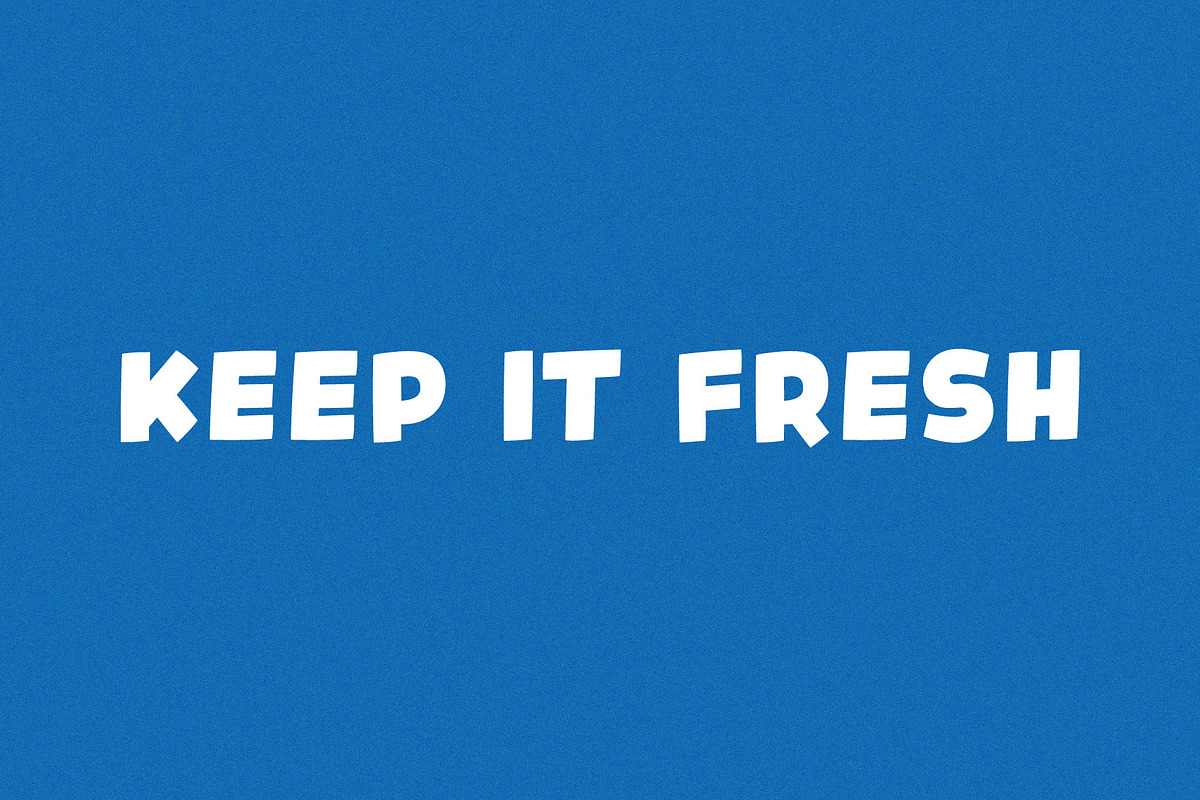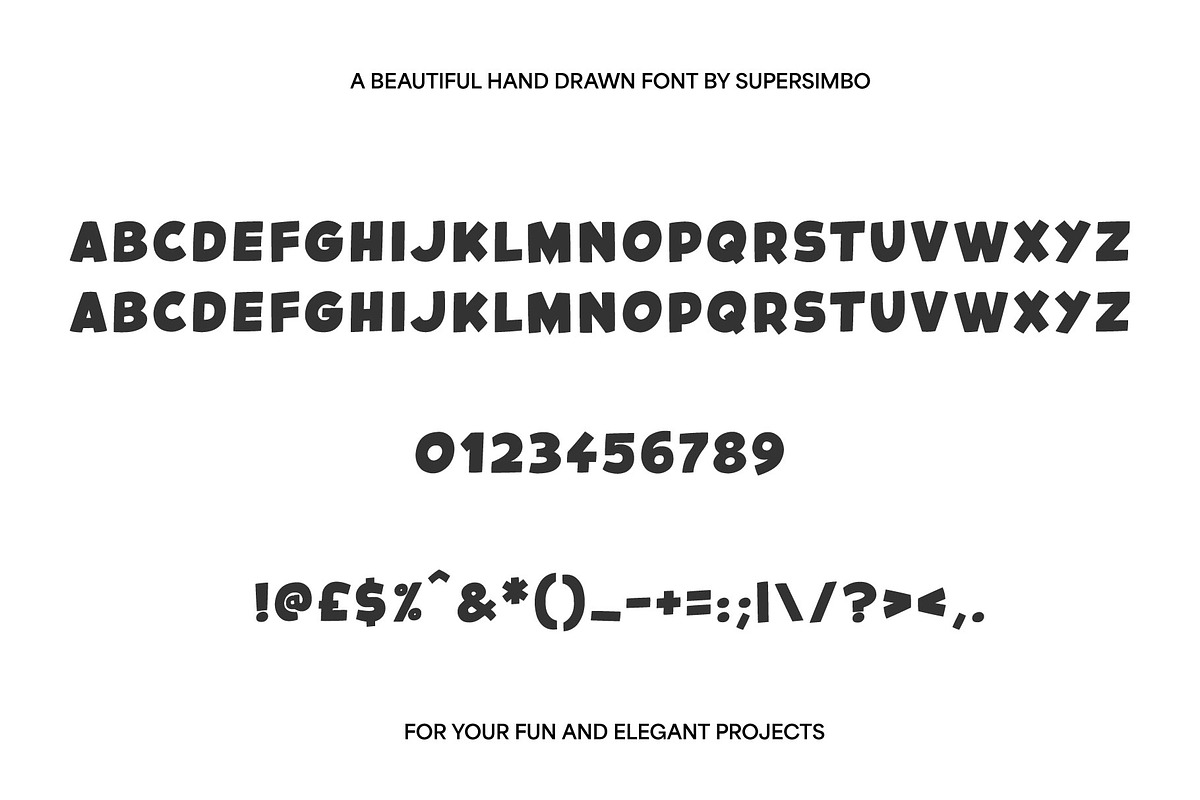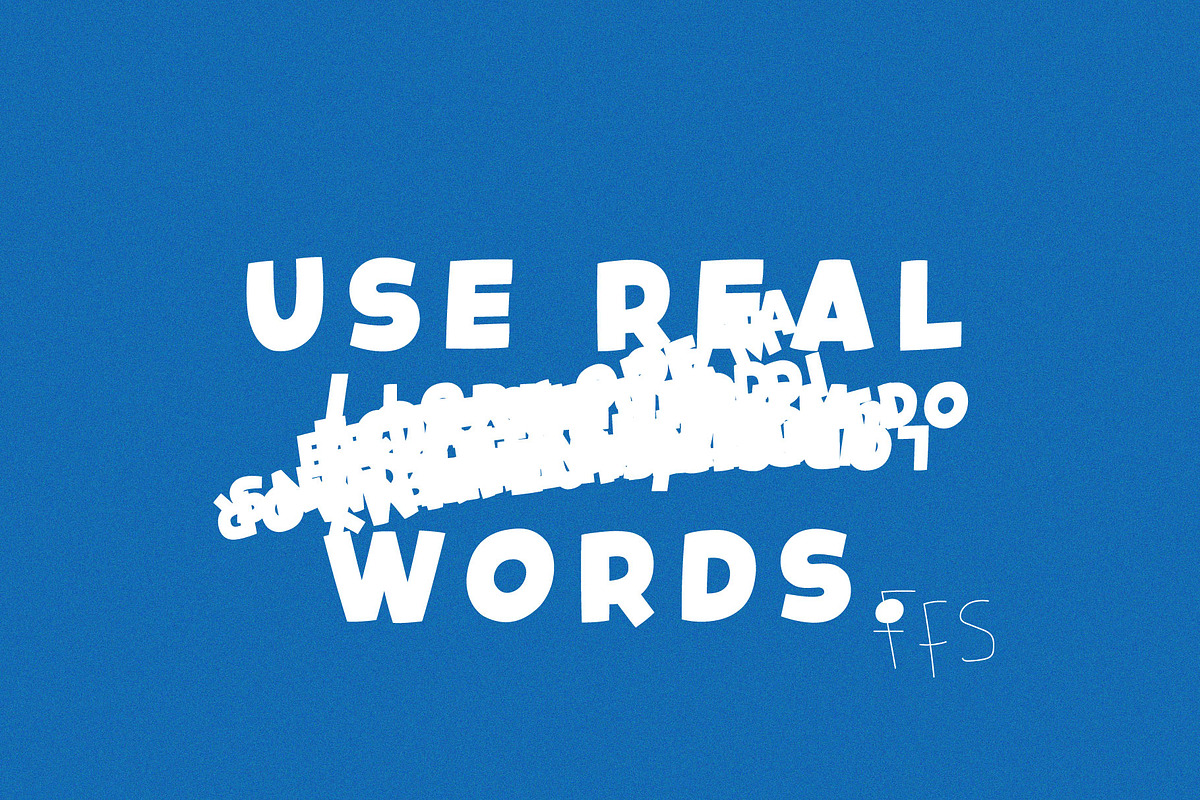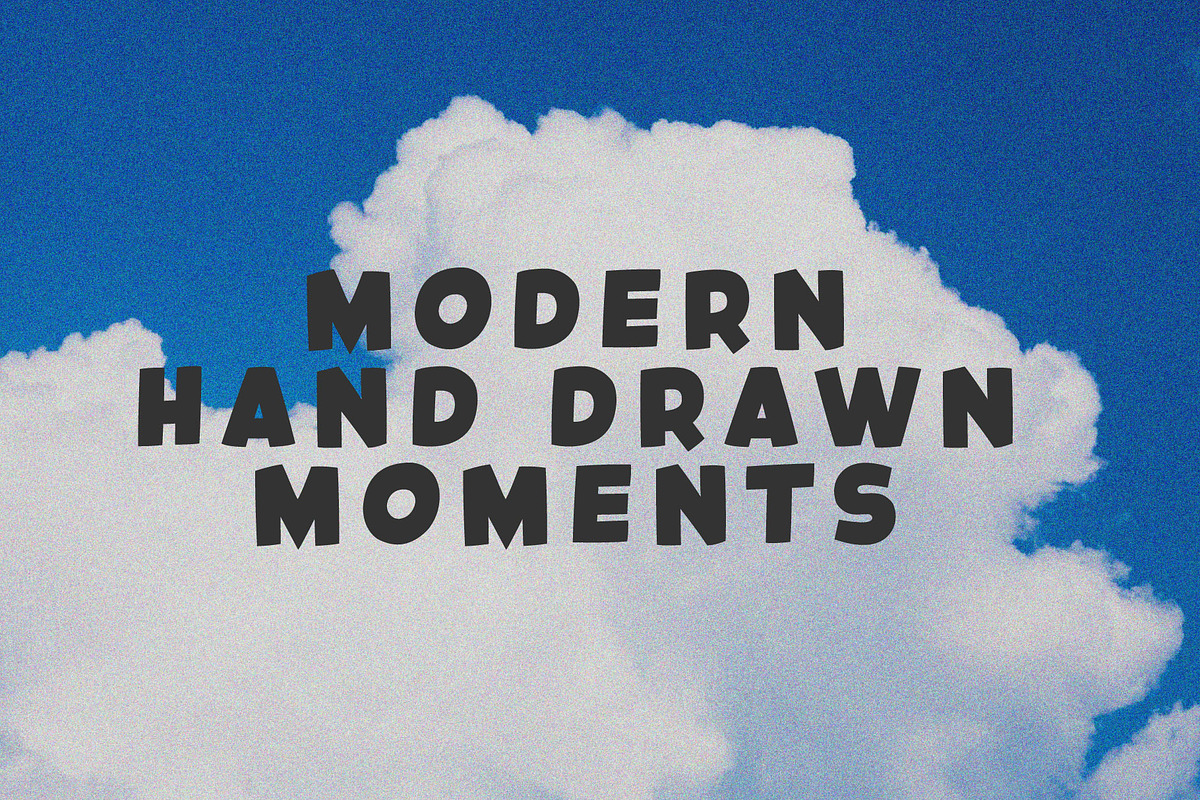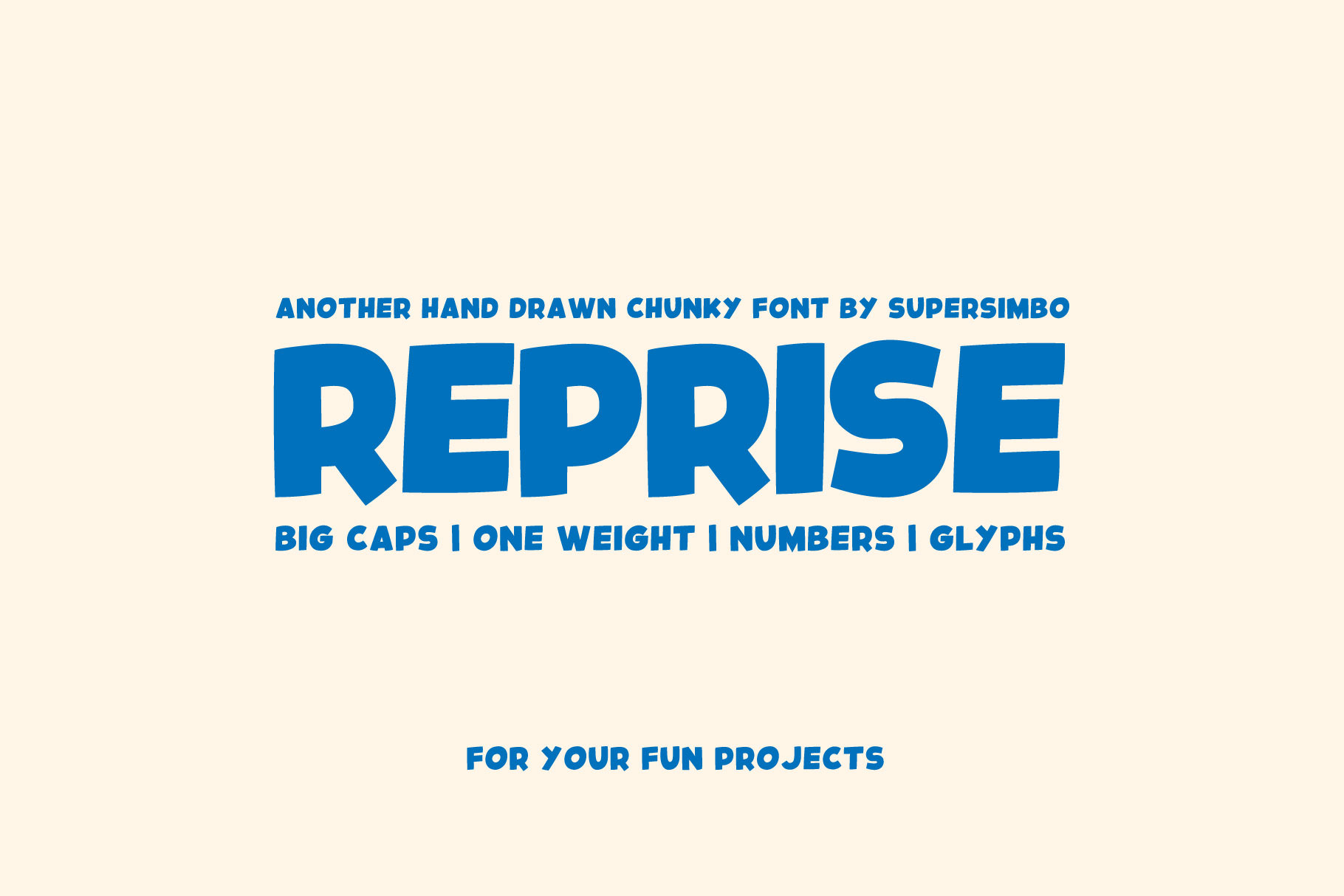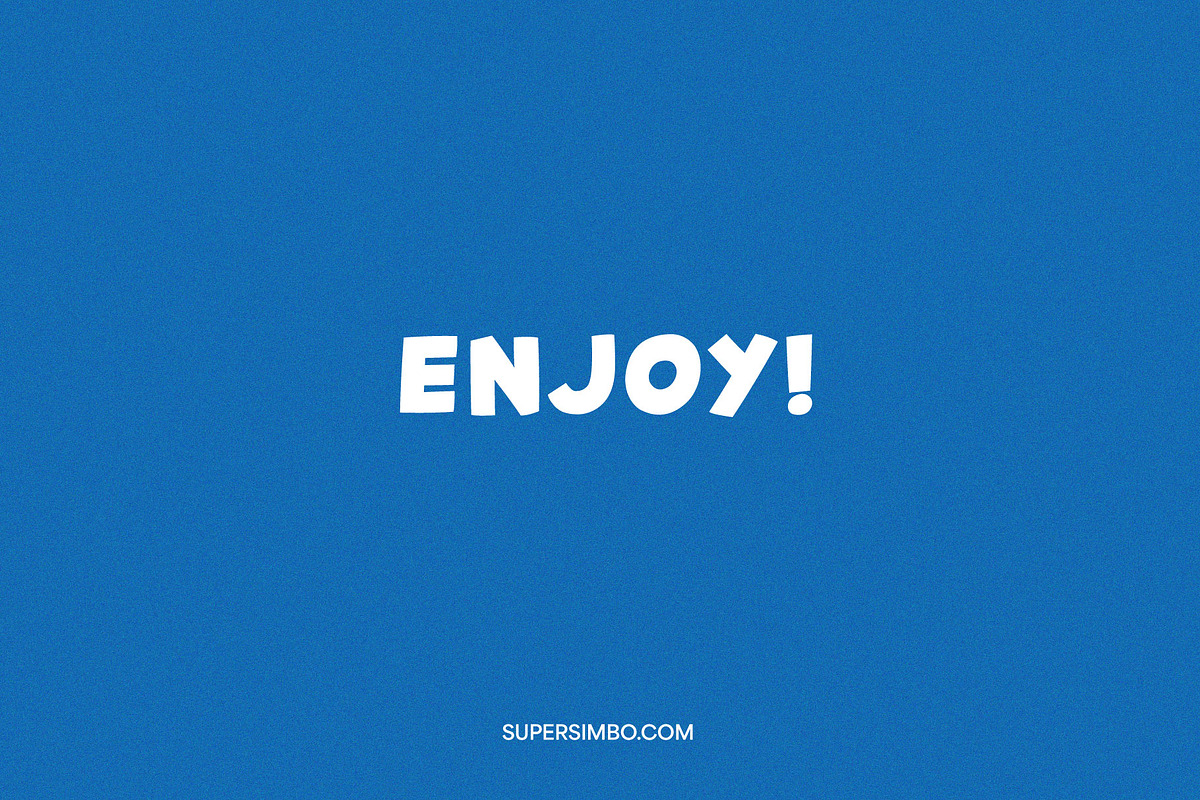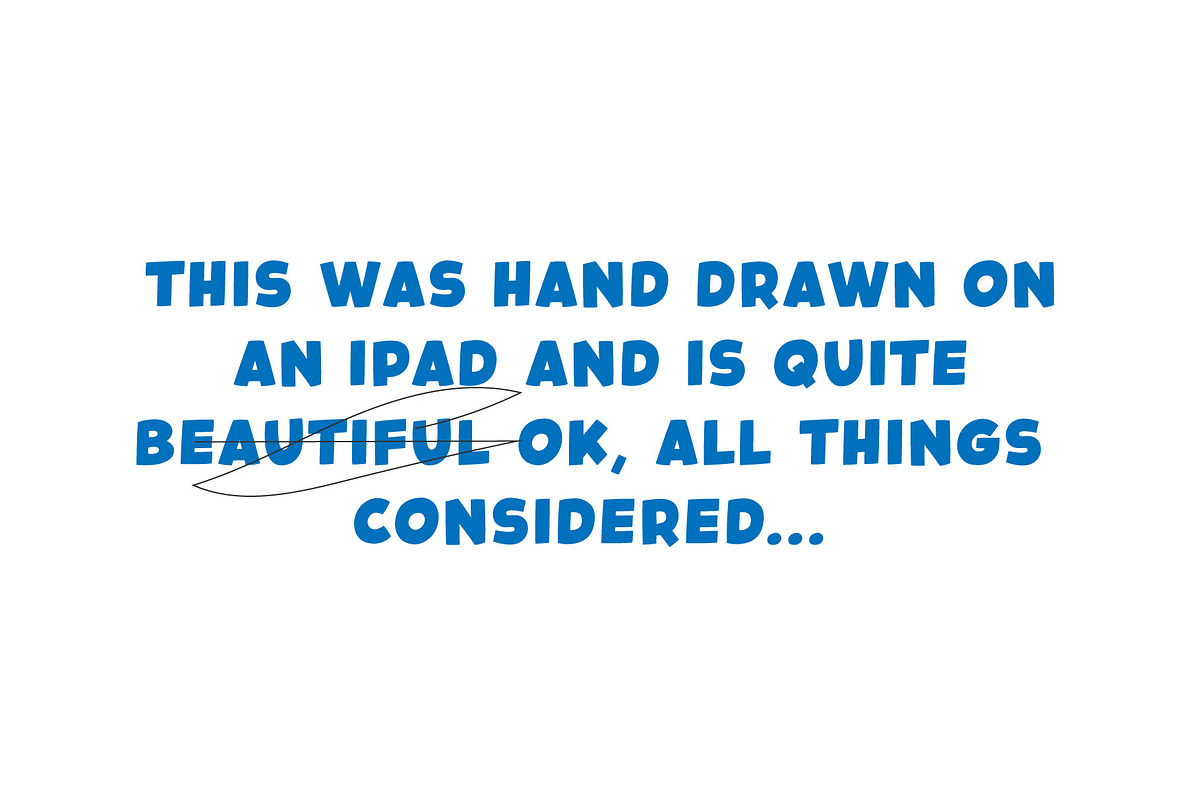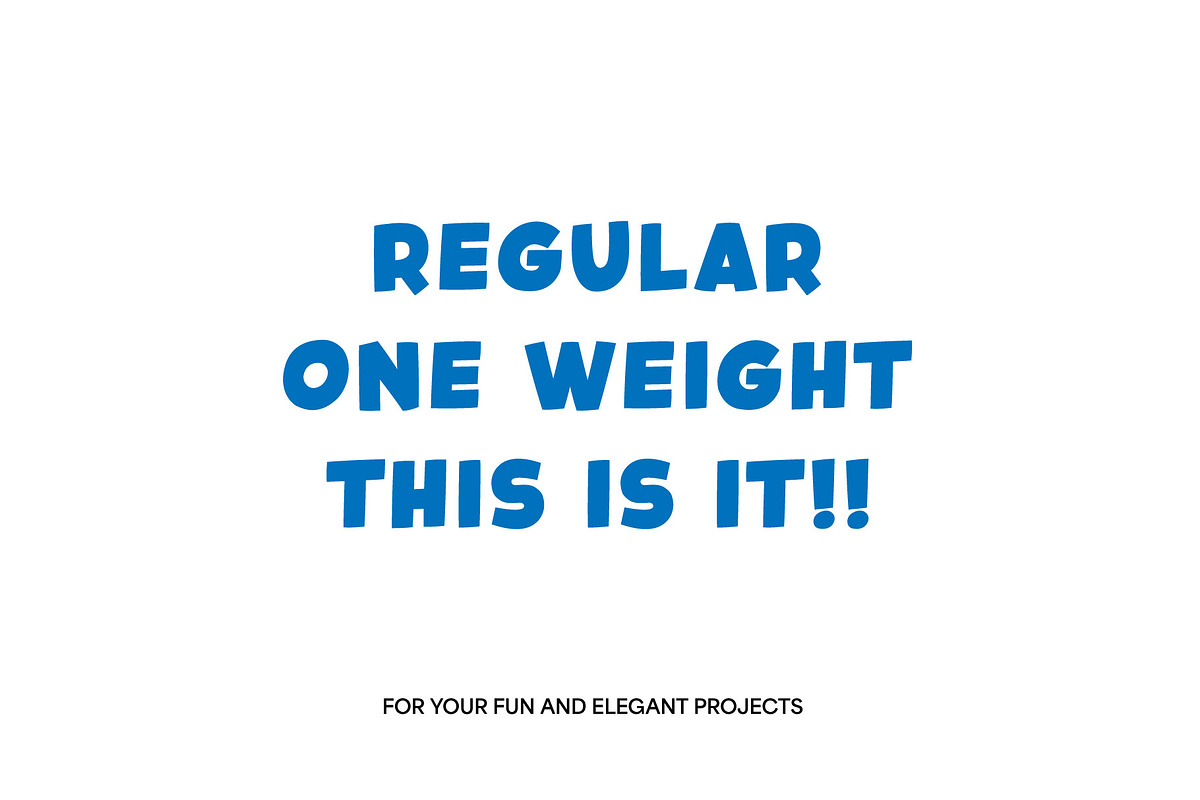
Reprise | Hand drawn font
Reprise is a new hastily hand drawn font by supersimbo, comic styled, quirky and not at all unique but hey, look how beautiful it is. Perfect for your fun and elegant projects, fresh, one weight, uppercase goodness... you know it makes sense.